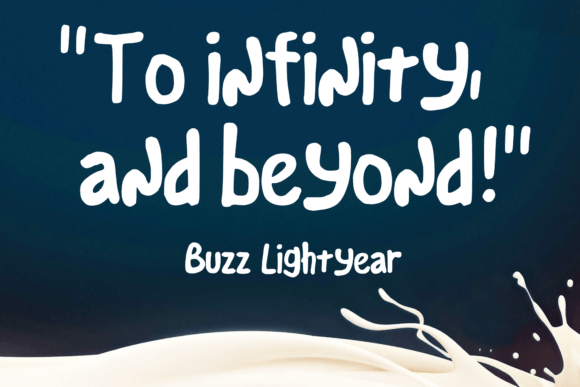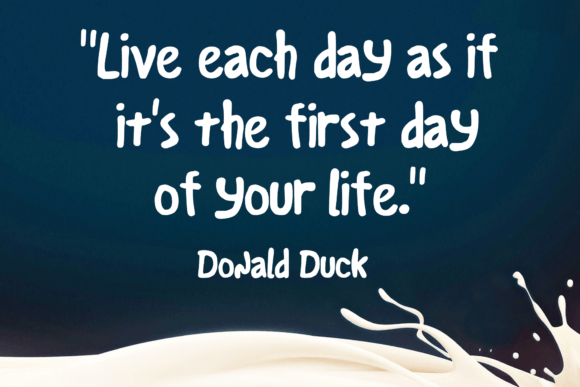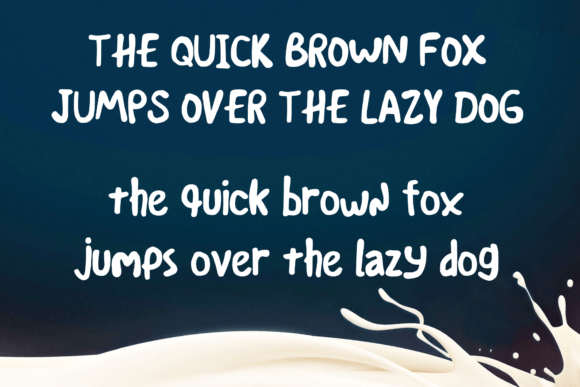
Introduction to Milky Sea Font
Milky Sea is a fun and playful display font.
You can use it for anything ranging from t-shirts, kids’ book designs, and greeting cards to stickers and posters, or anything that needs a casual touch Fall in love with its incredibly versatile style and use it to create lovely designs.
Key Features of Milky Sea Font
Why Choose Milky Sea Font?
Milky Sea Font offers exceptional quality and versatility, making it a valuable addition to your design toolkit. Whether you’re creating for personal projects or commercial use, Milky Sea Font delivers professional results.